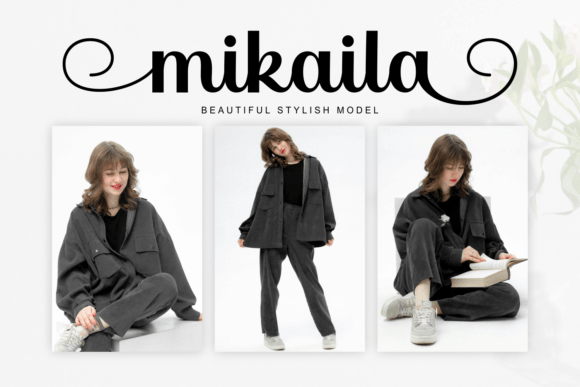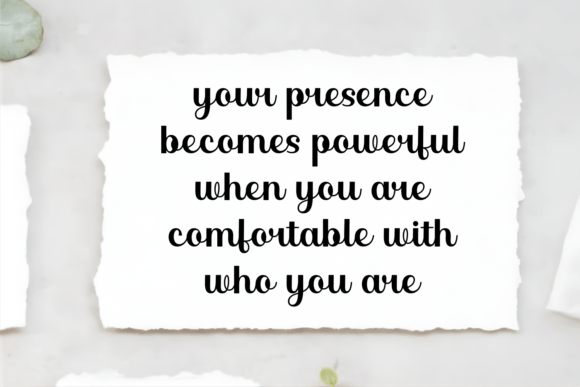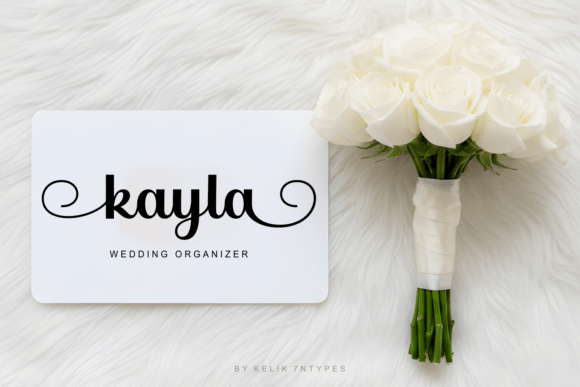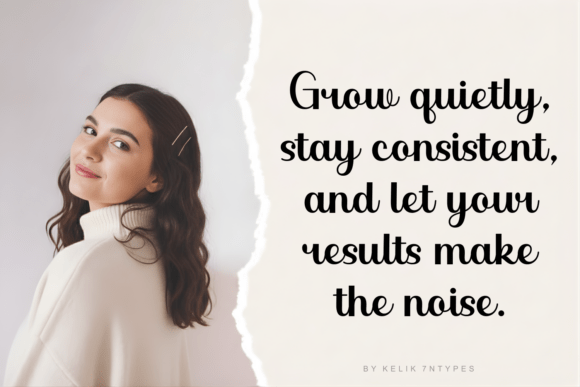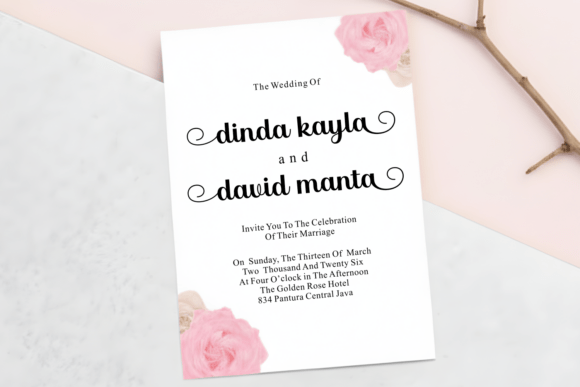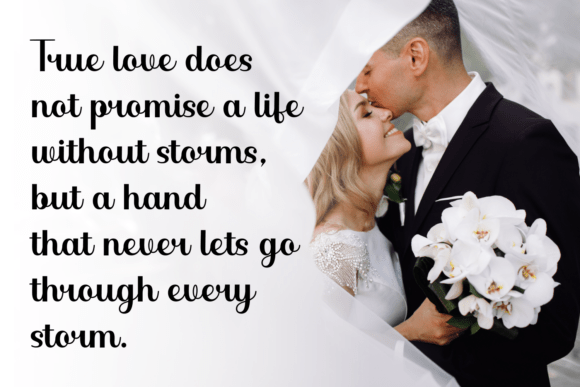
Introduction to July Aldi Font
As a designer, there’s nothing quite like the thrill of bringing a creative project to life. For me, it’s often the little details that make all the difference – the subtle curves, the delicate flourishes, and the way a font can transport us to a specific time and place. That’s exactly what the July Aldi Font does, weaving a spell of romance and elegance that’s hard to resist.
With its beautiful, flowing ligatures that transform into delicate heart shapes, this stunning ‘Romantic Script’ font is a must-have for any designer looking to add a touch of whimsy and sophistication to their work. Whether you’re creating wedding stationery, anniversary cards, or gift packaging, the July Aldi Font offers a professional, hand-lettered appearance that feels both intimate and high-end.
- Features a unique, modern design that can add a touch of elegance to any project
Honest Review: July Aldi Font
I recently stumbled upon the July Aldi Font and was excited to give it a try. As a designer, I’m always on the lookout for high-quality design resources to enhance my creative projects.
Here are some things that work well about the July Aldi Font:
- ✨ The font is highly customizable, making it perfect for a wide range of design applications.
- ✨ The design itself is modern and sleek, perfect for contemporary design projects.
- ⚠️ The font is not suitable for use in very small sizes, as it can become difficult to read.
- ⚠️ The font is not as versatile as some other fonts on the market, and may not be the best choice for complex or multi-line text.
Overall, I’m impressed with the July Aldi Font and would definitely recommend it to designers looking for a high-quality, free design resource. With a little creativity, this font can really shine in the right design project.
The July Aldi Font is ideal for a variety of creative projects, including logos, brochures, posters, and presentations. Its high-quality design and transparent background make it perfect for use in a range of applications, from business to personal projects.